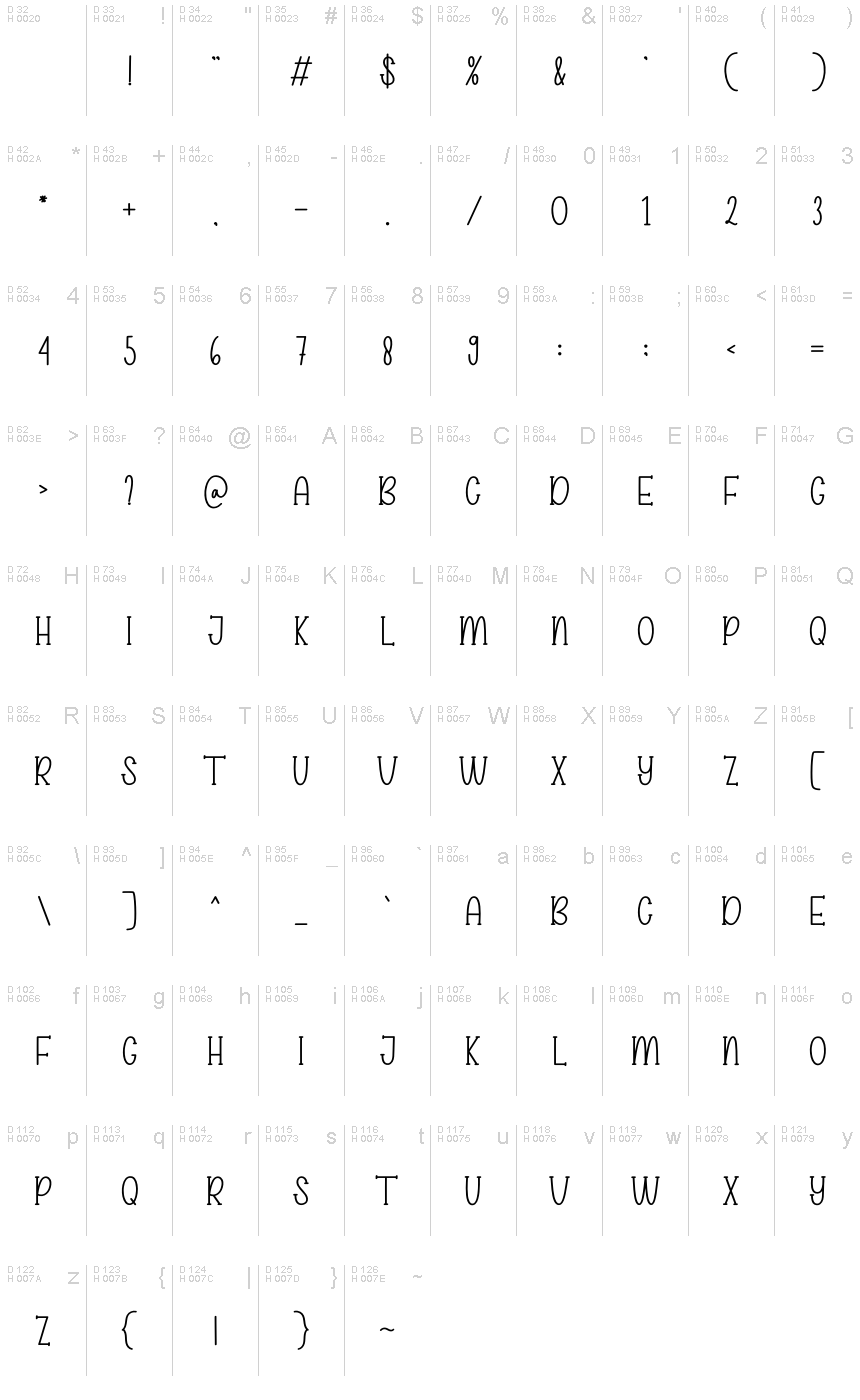
Honey Cake
Honey Cake, crafted by Scratchones, is a font that exudes playfulness and charm. With its cartoon style, it brings forth a sense of whimsy and fun that is perfect for grabbing attention. The letters have a friendly and approachable vibe, characterized by their condensed structure which gives them a delightful compactness.
This cheerful display font finds its sweet spot in designs where personality is key. Its unique character makes it ideal for everything from children's book titles to playful branding or any creative project aiming to evoke warmth and joy. Whether on birthday invitations or bakery signage, Honey Cake adds a dash of lightheartedness to every word it spells out.